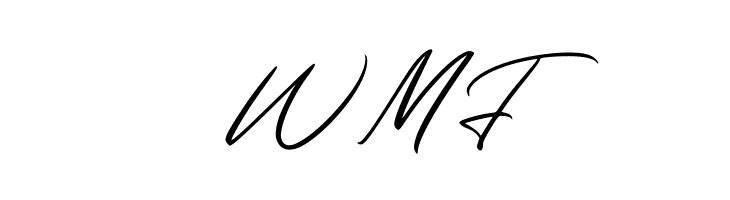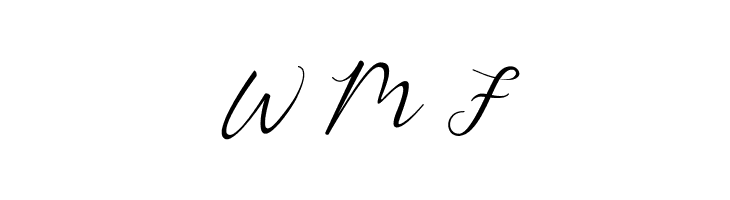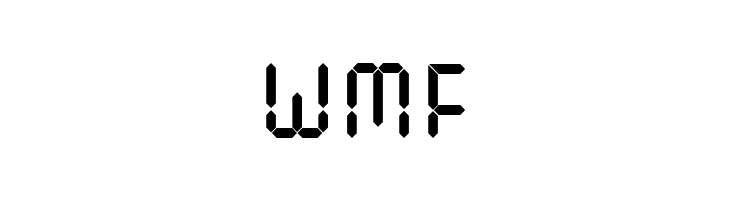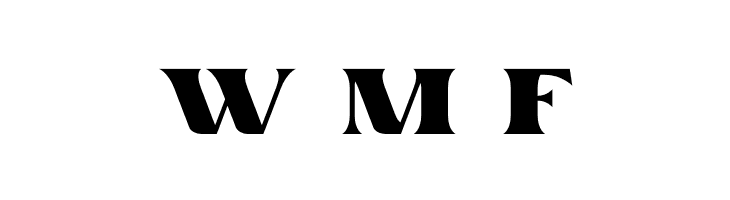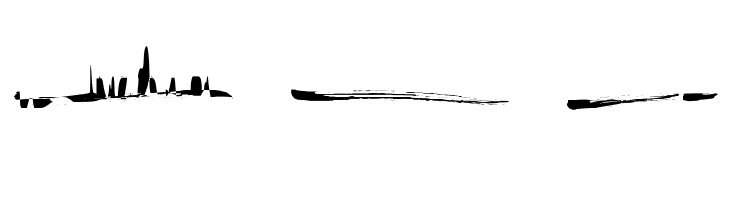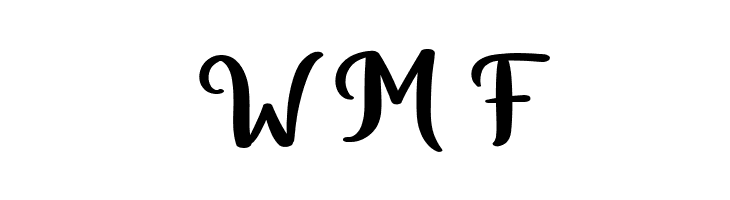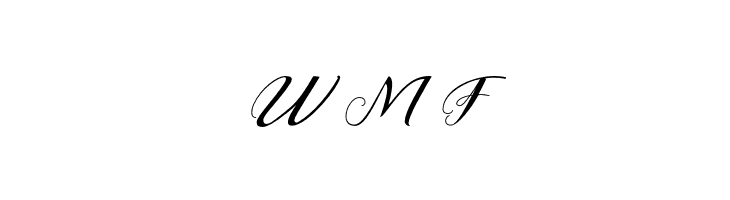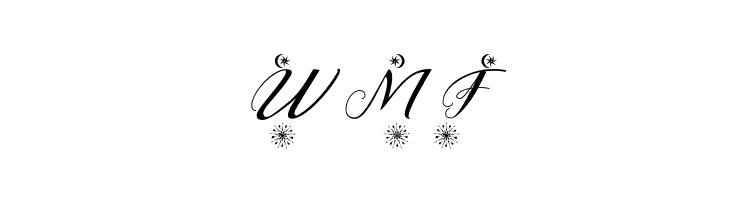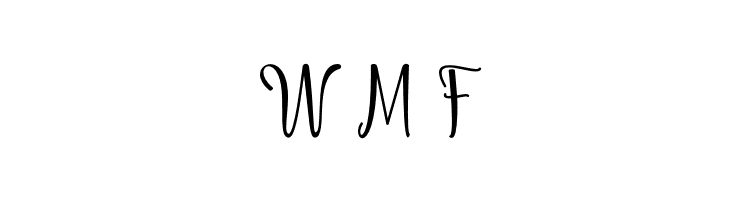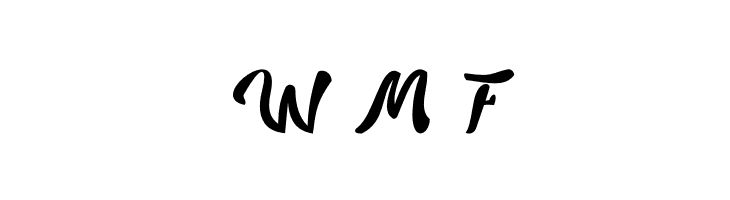
A flowing, elegant script font with connected, cursive characters.
A decorative, geometric font with playful, abstract facial features.
A decorative font with dinosaur and prehistoric scene silhouettes.
A bold, gothic-style font with intricate blackletter influences.
A bold, geometric font with high contrast and enclosed characters.
A decorative font inspired by ancient stone age pictographs.
A pictorial winter-themed display font with hand-drawn illustrations for each character.
An abstract, collage-like decorative font with a chaotic and artistic design.
A decorative, geometric font inspired by the De Stijl art movement.
An ornate and decorative font with intricate floral embellishments.
A whimsical and decorative font with playful, creature-like embellishments.
A playful, handwritten font with rounded, smooth letterforms.
A bold, serif font with a vintage yet modern appeal, featuring strong strokes and sharp serifs.
A playful and elegant handwritten script font with decorative loops and smooth curves.
A playful and flowing script font with smooth curves and consistent strokes.
A bold and expressive script font with dynamic curves and modern elegance.
A vintage, typewriter-style font with a bold, worn appearance.
A vintage typewriter-style font with bold, irregular characters and a distressed texture.
A bold, cursive font with a flowing, handwritten style and high contrast.
A bold, modern typeface with clean, geometric lines and excellent readability.
A bold, modern sans-serif font with clean lines and strong presence.
A bold, brush-style font with a hand-painted, dynamic appearance.
A whimsical and decorative font with intricate, vine-like flourishes.
A bold, fragmented font with a dynamic and edgy design.
A playful, hand-drawn font with tall, narrow letters and whimsical details.
A hand-drawn, rustic font with bold, uneven strokes and a playful appearance.
A modern decorative font with unique cut-out sections and dynamic curves.
A modular, grid-based font with a digital, pixelated style.
A bold, playful handwritten font with thick, rounded strokes and a lively appearance.
A lively handwritten font with smooth, slanted strokes and a casual elegance.
A bold, modern sans-serif font with clean lines and strong presence.